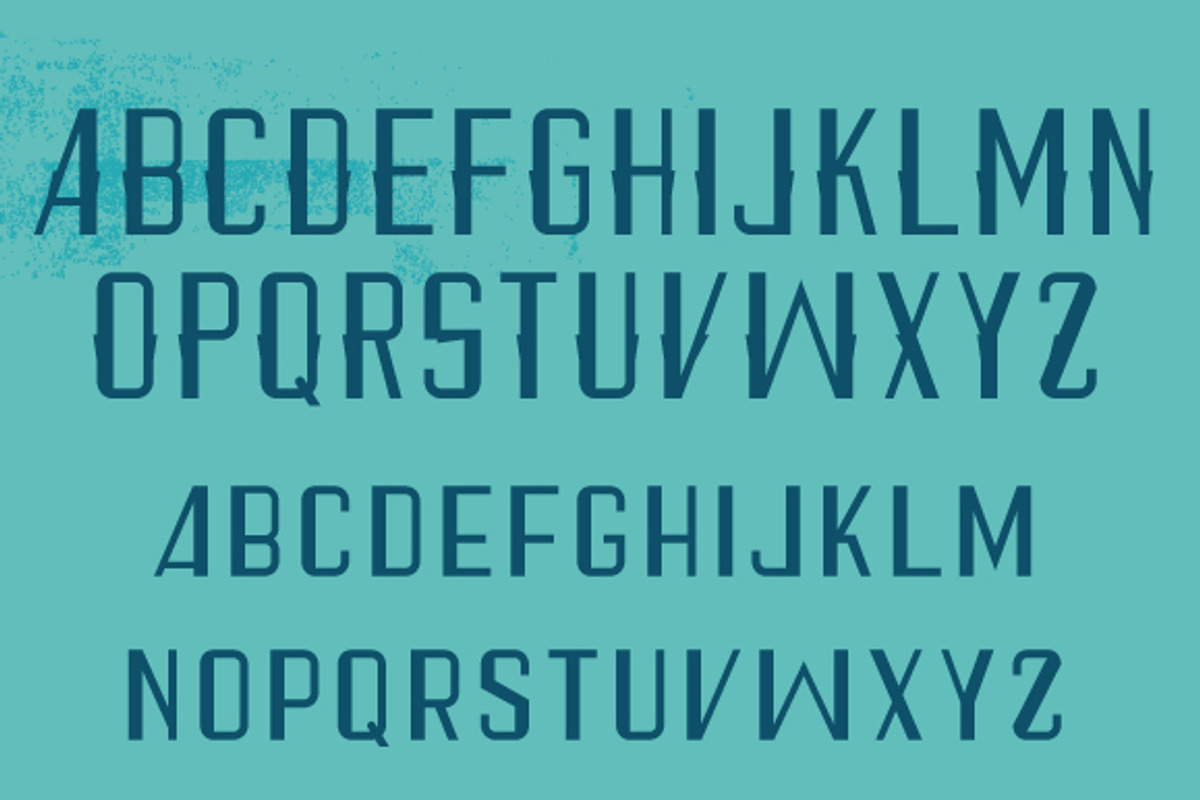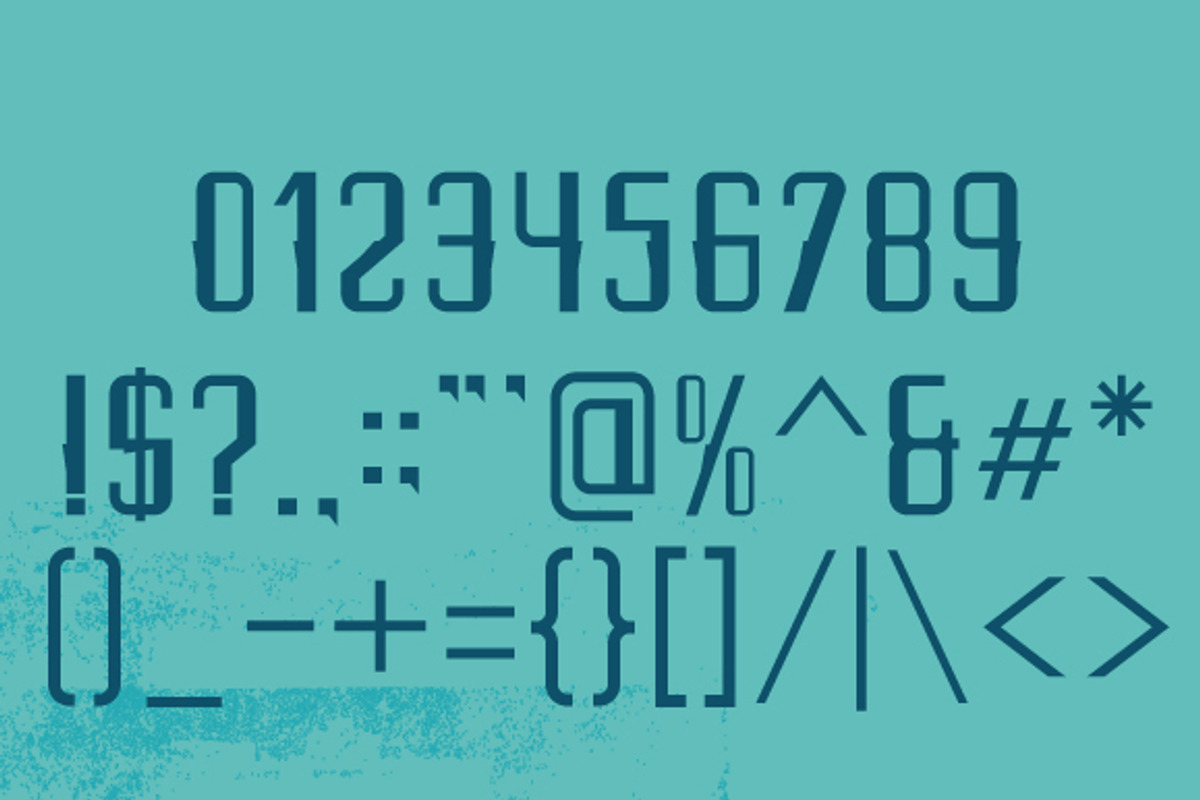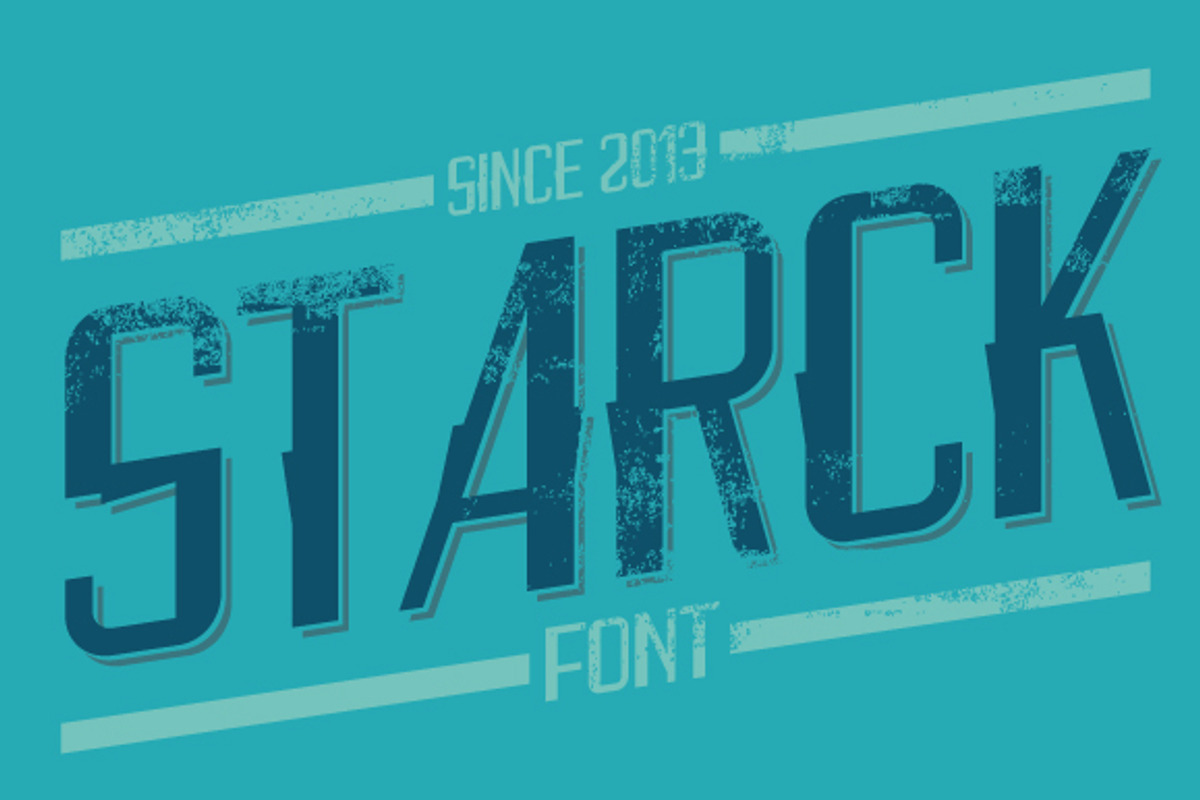
Starck Font
Starck Font by alit design is a font selected for branding, posters, packaging, typography.
- Including all special characters.
Starck Font by alit design fits naturally into Branding, posters, packaging, typography.